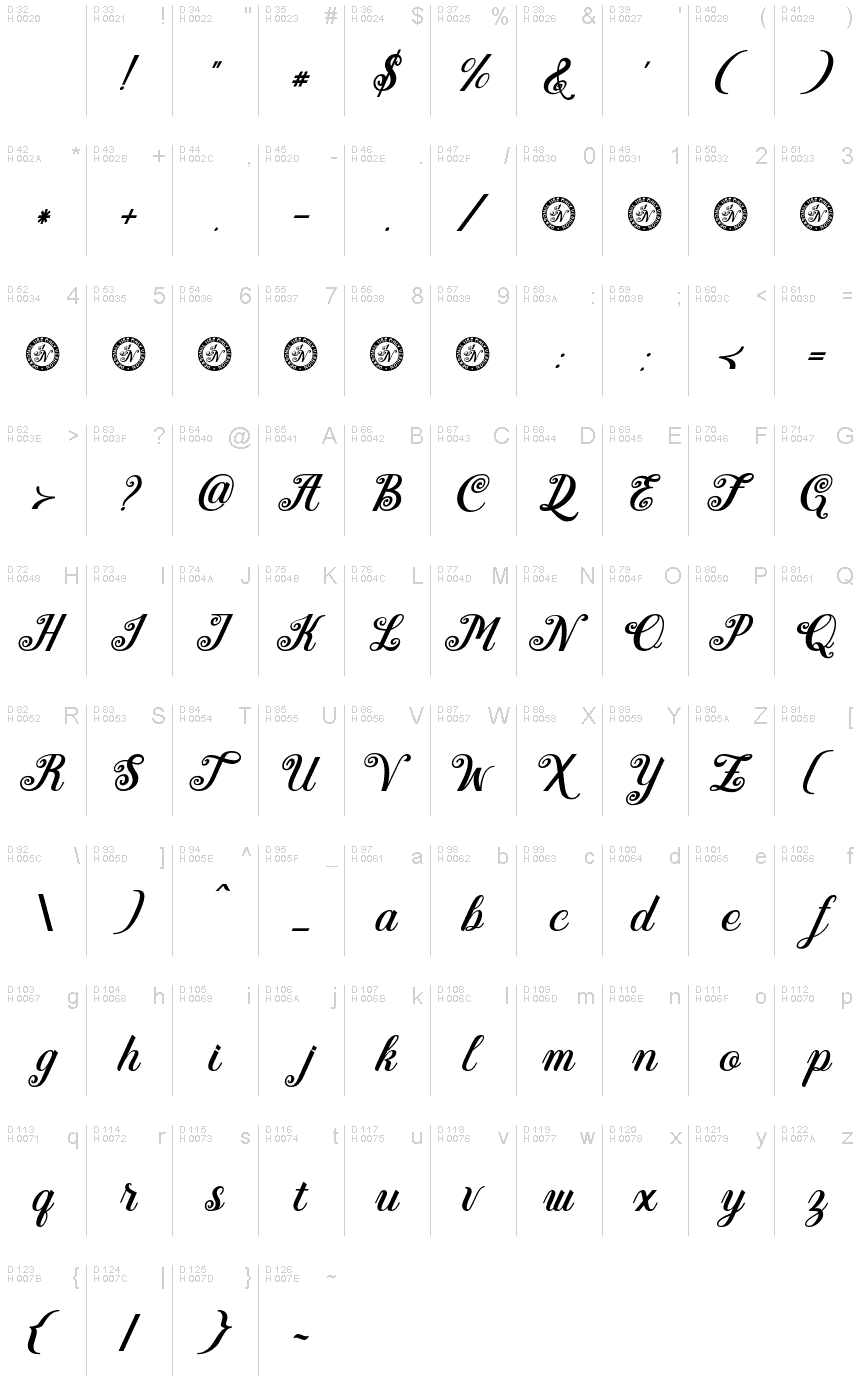
Clement_Times
Clement Times is a stunning semi-bold font that was designed by Iyon Nurdiansyah. This curly calligraphy typeface is perfect for any project that requires an elegant and refined touch. The unique curves and loops of this font make it the ideal choice for wedding invitations, branding, logos, and more. Its timeless design adds a touch of sophistication to your projects without overwhelming them. Clement Times' versatility allows it to work seamlessly across a wide range of mediums such as print, digital, or signage. Invest in this beautiful font today and elevate your designs to new heights!